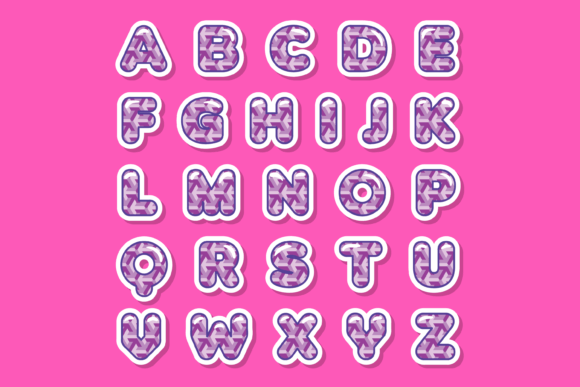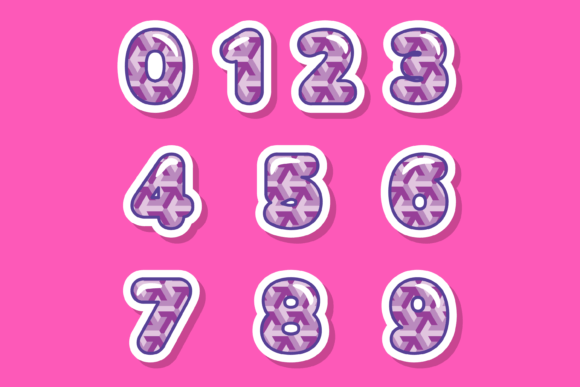
Unlock Creative Possibilities with Arrow Font: A Vibrant Color Font for Designers and Crafters
Are you on the hunt for a font that adds a pop of color and a dash of creativity to your designs? Look no further than Arrow Font, an incredibly cool color font that’s perfect for custom designs, DIY crafts, and any creation that requires a lovely touch. In this article, we’ll dive into the world of Arrow Font, exploring its features, compatibility, and uses, as well as provide tips on how to get the most out of this amazing font.
What is Arrow Font?
Arrow Font is a stunning color font that belongs to the Opentype-SVG family. This means it’s not just a standard font, but a vibrant, multi-colored font that can add depth and visual interest to your designs. With Arrow Font, you can create stunning custom designs, craft beautiful DIY projects, and add a professional touch to your creations.
Key Features of Arrow Font
- Color Font: Arrow Font is a true color font, allowing you to create designs with multiple colors in a single font.
Tips and Tricks for Using Arrow Font
To get the most out of Arrow Font, here are a few tips and tricks to keep in mind:
- Experiment with Colors: One of the best things about Arrow Font is its ability to display multiple colors. Experiment with different color combinations to create unique and eye-catching designs.
- Use in Combination with Other Fonts: Arrow Font pairs well with a range of other fonts. Try combining it with a bold font for a striking contrast.